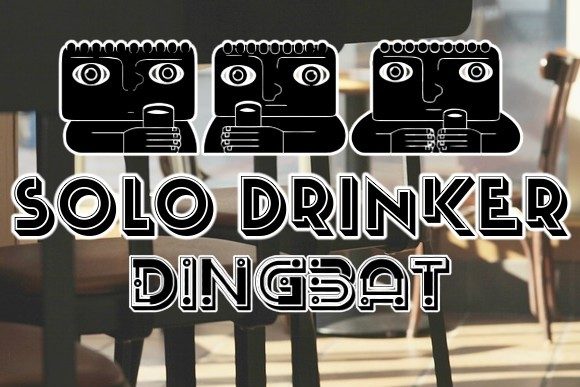
Prepare yourself to dive into the extraordinary world of Solo Drinker, a dingbats font family designed to infuse your designs with a captivating industrial charm. Discover a universe where creativity meets precision, where edgy aesthetics blend seamlessly with remarkable functionality. Let Solo Drinker be your trusted companion as you embark on a journey of artistic expression, whether you're a seasoned designer or just starting your creative adventure.
With Solo Drinker, the possibilities are limitless. Unleash your imagination and craft logos that exude power and sophistication, creating a lasting impression that sets your brand apart. Design posters that capture attention and ignite conversations, leaving your audience captivated by your unique vision. Elevate your stationery with a distinctive touch, transforming everyday correspondence into works of art. Let Solo Drinker amplify your marketing materials, adding a layer of intrigue and magnetism that attracts customers like moths to a flame.
Solo Drinker's versatility extends beyond the digital realm. It's the perfect partner for branding projects that yearn for a touch of industrial flair. Create packaging that demands attention on store shelves, leaving a lasting impact that lingers in the minds of consumers. Embrace the raw beauty of Solo Drinker as you design textiles that exude personality and style. Its bold lines and distinctive character will add a captivating dimension to your creations, making them stand out from the crowd.
With Solo Drinker, you're not just downloading a font; you're acquiring a gateway to a creative renaissance. Let its industrial spirit ignite your imagination and propel your designs to new heights. Transform ordinary projects into extraordinary expressions of individuality. Embrace the allure of Solo Drinker and unlock a world of limitless possibilities.